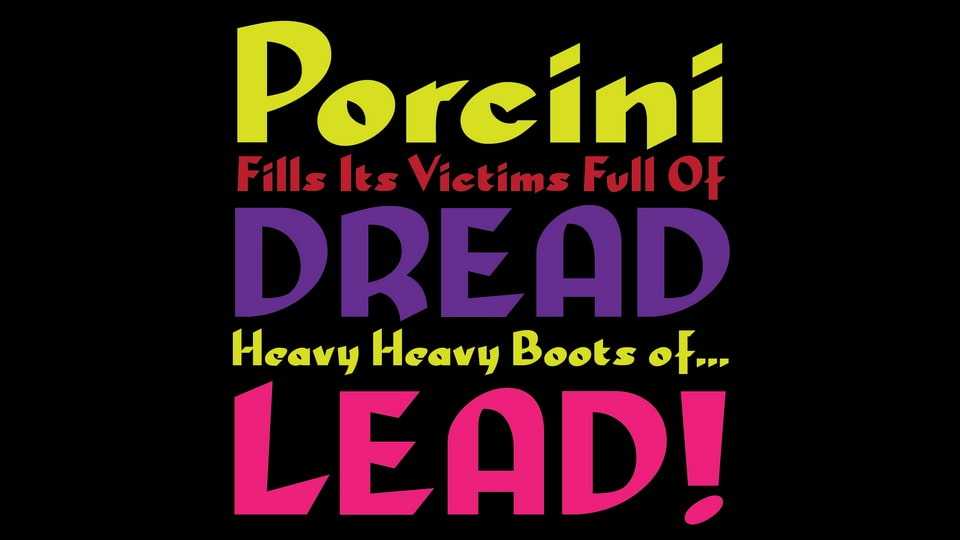
Download Porchini font, a calligraphic typeface that combines the elegance of traditional calligraphy with contemporary sharpness. With its straight and sharply defined strokes, the font embodies a unique blend of sophistication and modernity.